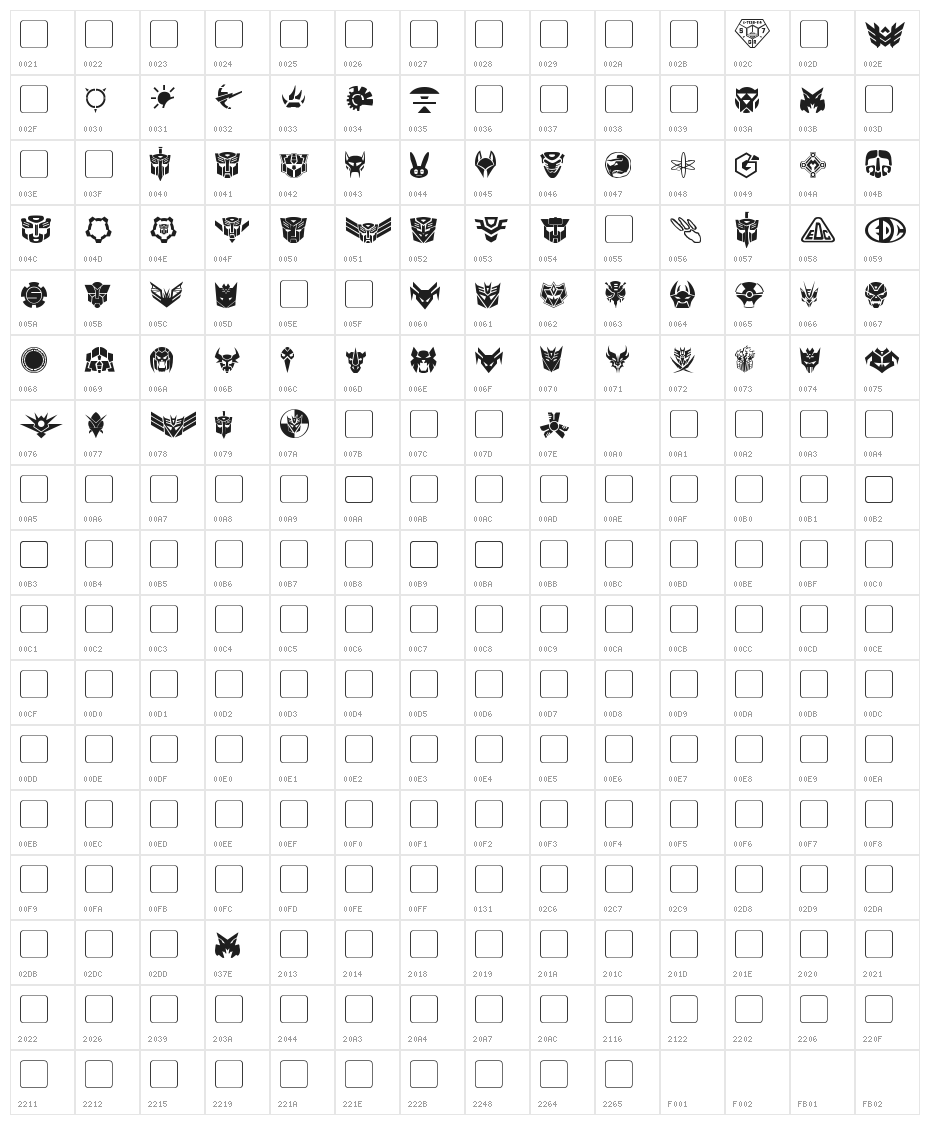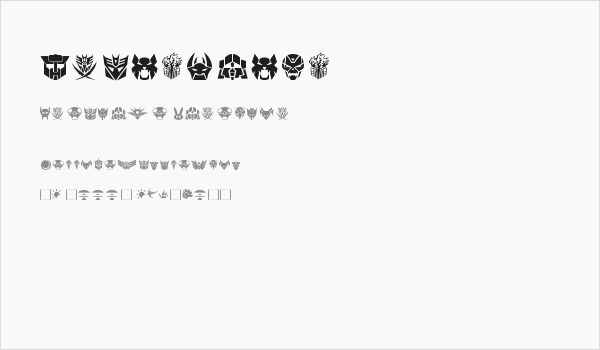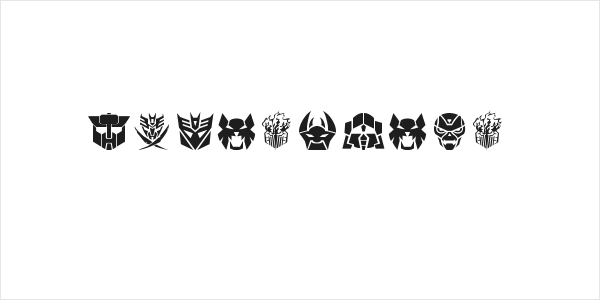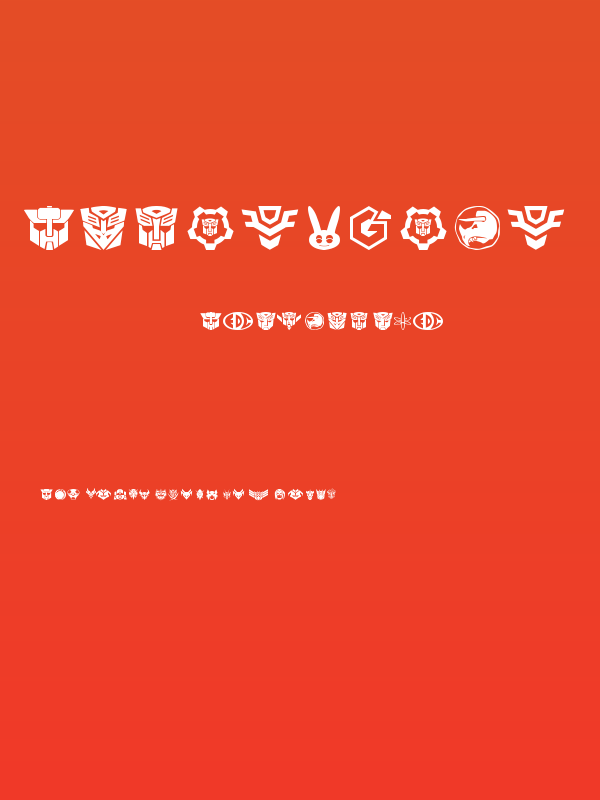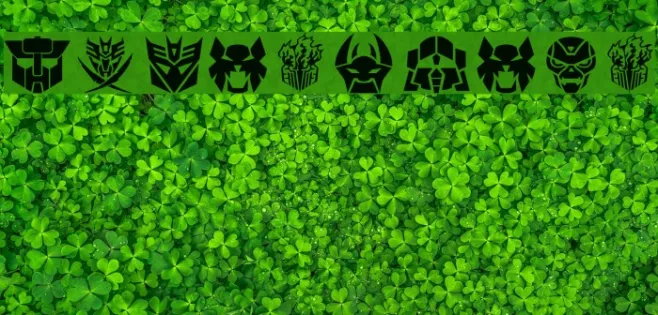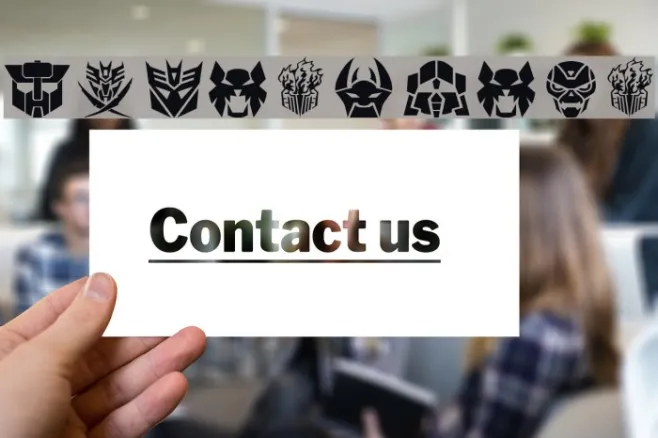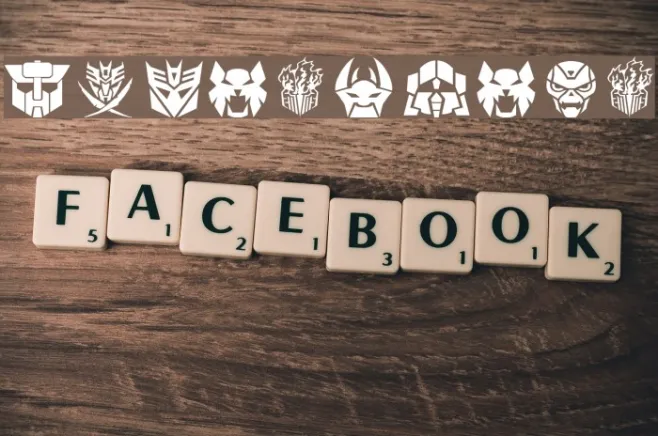
Transdings Font
Transdings Description
This collection features a series of intricate, stylized icons inspired by robotic and mechanical themes. Each symbol is crafted with bold lines and geometric shapes, evoking a sense of futuristic technology and advanced machinery. The icons include various interpretations of robotic faces, emblems, and abstract designs that suggest movement and power. The overall aesthetic is both modern and industrial, making it suitable for projects that require a strong, tech-oriented visual impact. The icons are primarily monochromatic, emphasizing their detailed line work and structured forms.
| Use Case | Logos, Icons, Branding |
| Proposed Projects | Ideal for use in tech branding, video game design, sci-fi themed projects, and robotics-related presentations. |